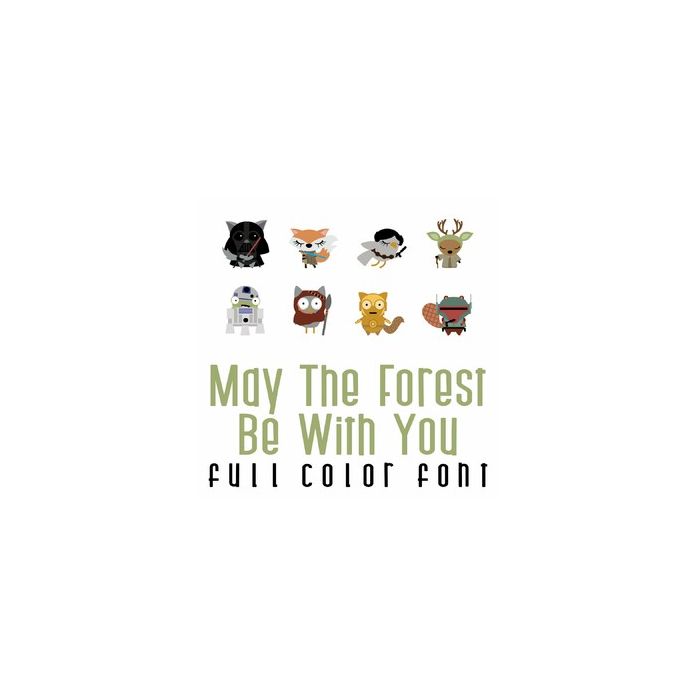
This adorable full color doodlebat font features 26 forest animals dressed as your favorite space characters. Perfect for cards, crafts, gifts, decor, scrap book pages, planner stickers and more!